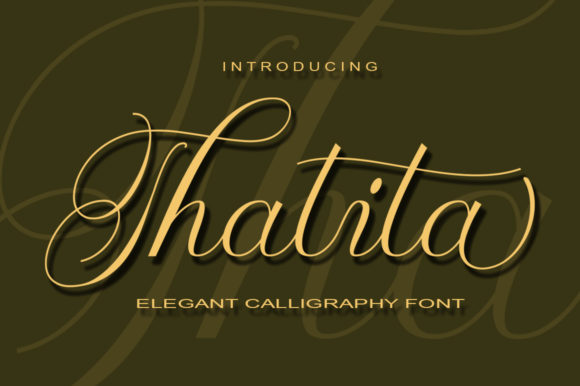
Unleash the Enchantment of Thalita Font: A Journey into Exquisite Calligraphy
In the realm of digital artistry, there exists a font that transcends the boundaries of ordinary typography, captivating hearts with its elegance and grace. Thalita Font, a creation of Slex_studio, is an exquisite calligraphy font that evokes a sense of luxury and sophistication, leaving an indelible mark on every design it adorns.
Thalita Font belongs to the illustrious family of script fonts, known for their flowing lines and graceful curves. Each letter, meticulously crafted, dances across the page with an effortless charm, reminiscent of a skilled calligrapher's hand. Its delicate strokes and ornate flourishes add a touch of timeless elegance to any project, transforming words into works of art.
Immerse yourself in the versatility of Thalita Font, a font that effortlessly adapts to a myriad of creative endeavors. Whether you're designing wedding invitations, thank you cards, greeting cards, or crafting logos that exude professionalism, Thalita Font rises to the occasion, adding a touch of refinement and sophistication to each creation.
With Thalita Font, the possibilities are endless. Its PUA encoding grants you effortless access to a treasure trove of glyphs and swashes, empowering you to unleash your creativity and add intricate details that elevate your designs to new heights.